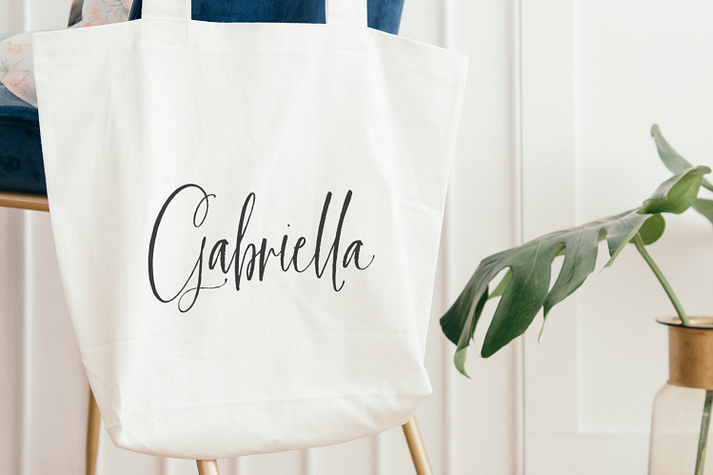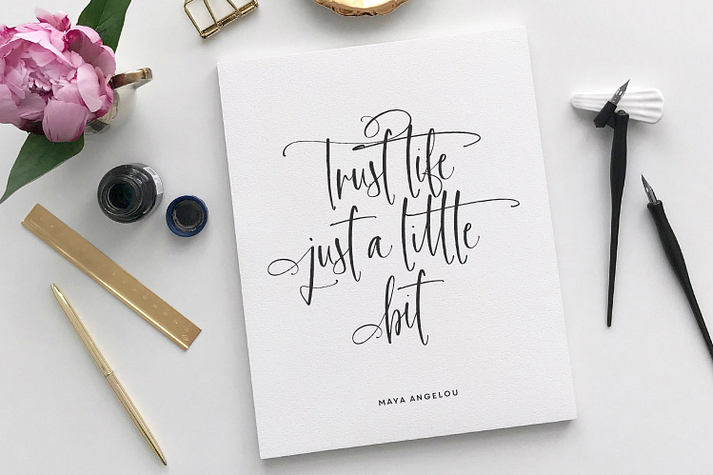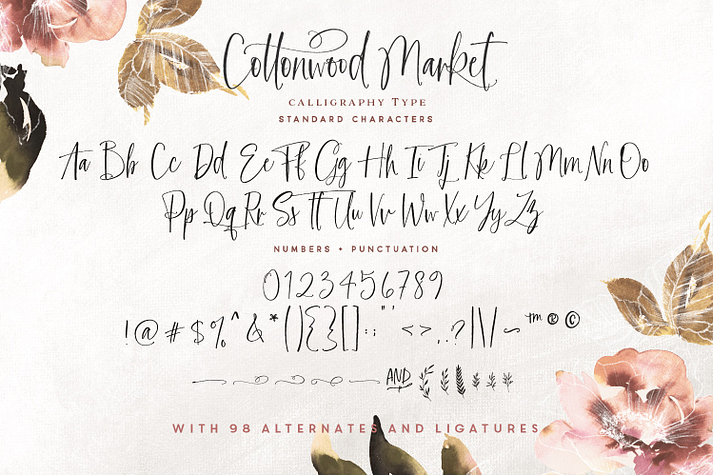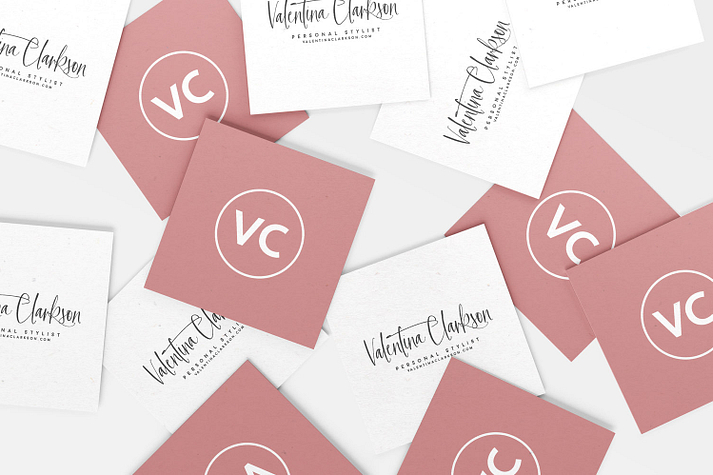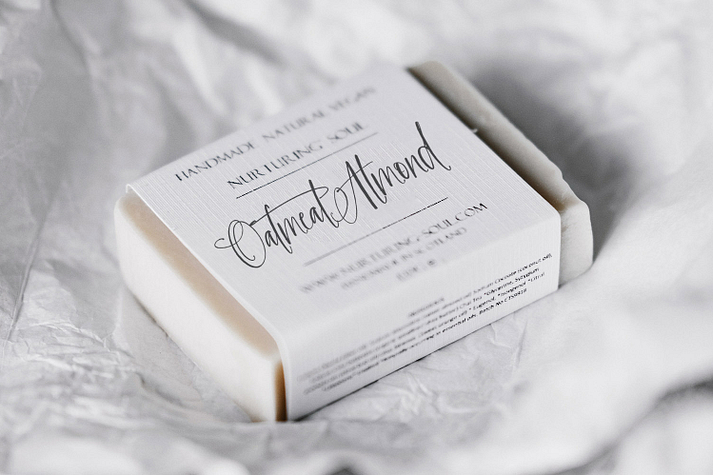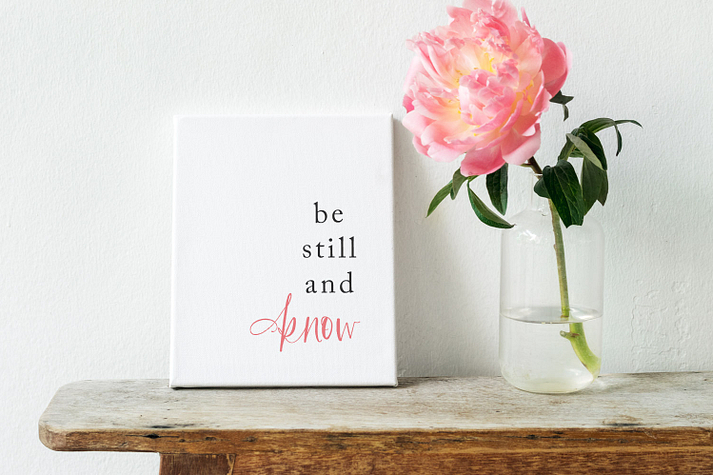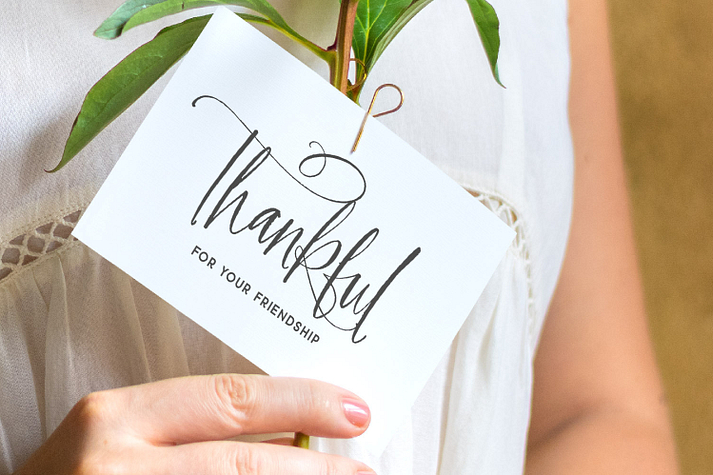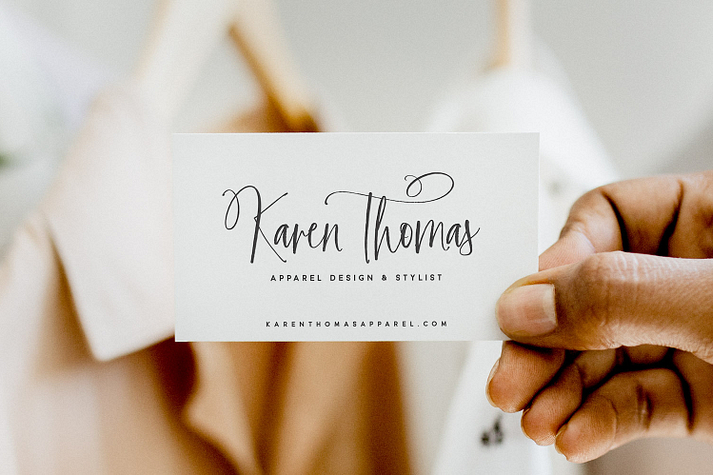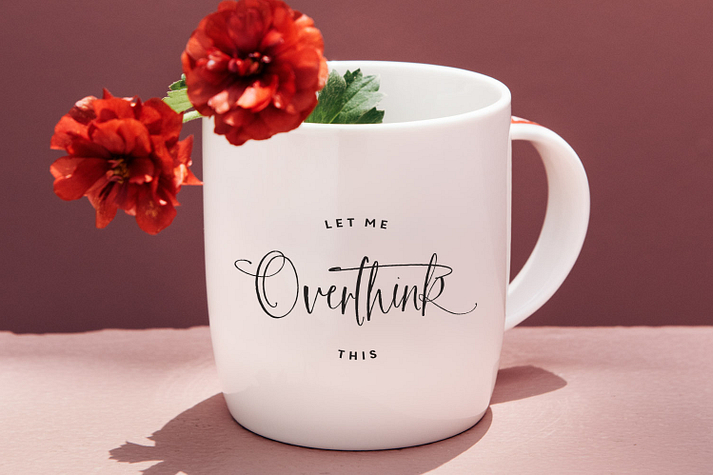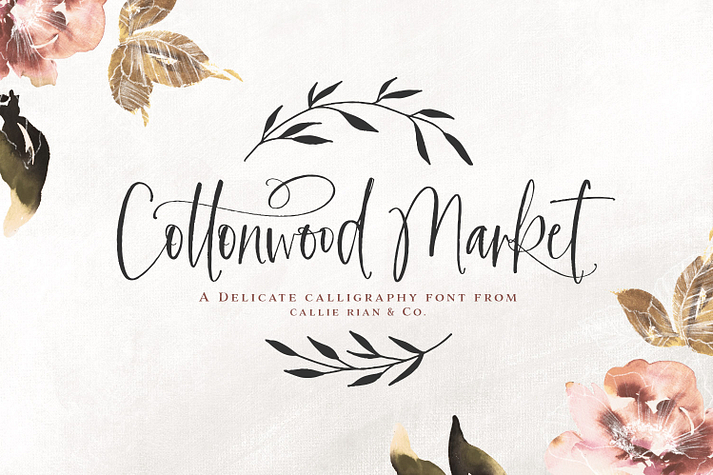
Cottonwood Market
Cottonwood Market is a font family. This typeface has two styles and was published by MakeMediaCo.
Introducing Cottonwood Market - a sweet, upright calligraphy font with loads of decorative alternates and a charming signature feel. This lovely little calligraphy font is packed with alternates, ligatures, and an authentically inked texture. It’s romantic and delicate with thin lines and signature glyphs. Check out that swanky ‘k!’ ????
Cottonwood Market has plenty of personality for branding, bridal, merchandise, signage, signatures, and more! With over 90 ligatures and alternates to play with, you can have some serious fun with this font. And I’ve even included an italic version, plus 6 hand drawn floral elements (within the font file).  ????